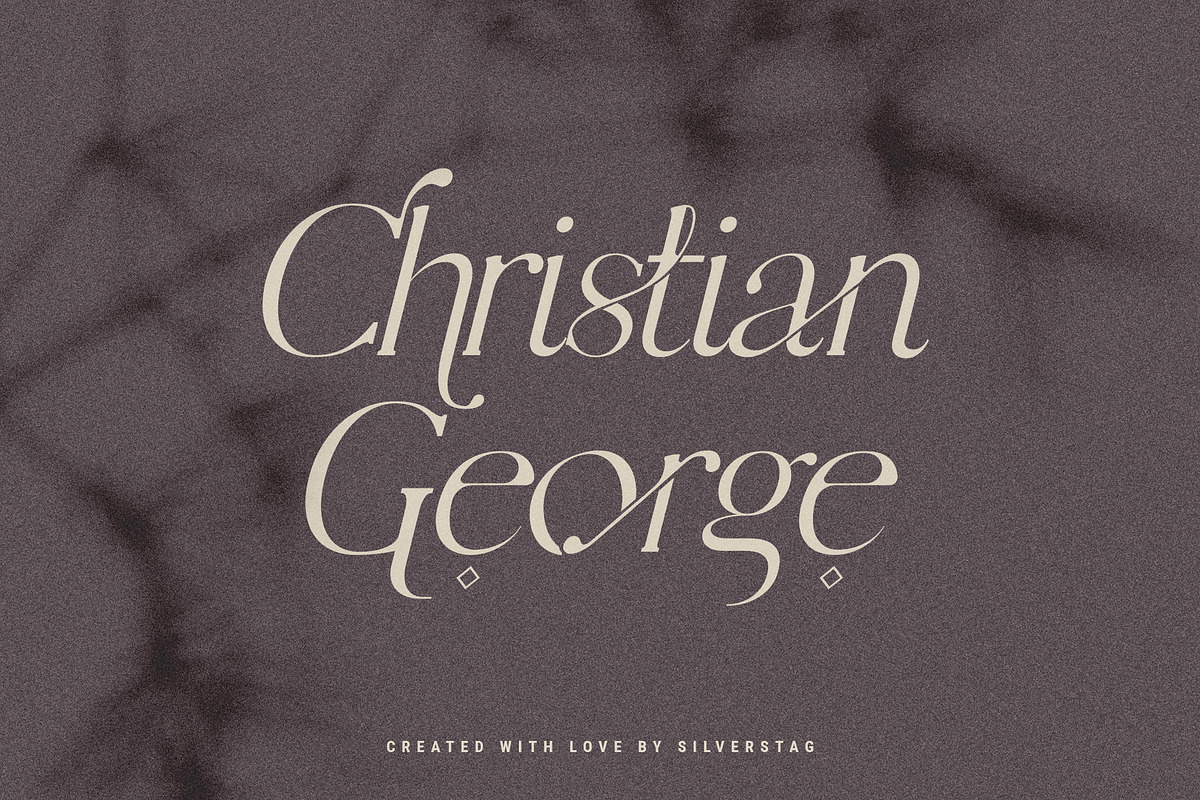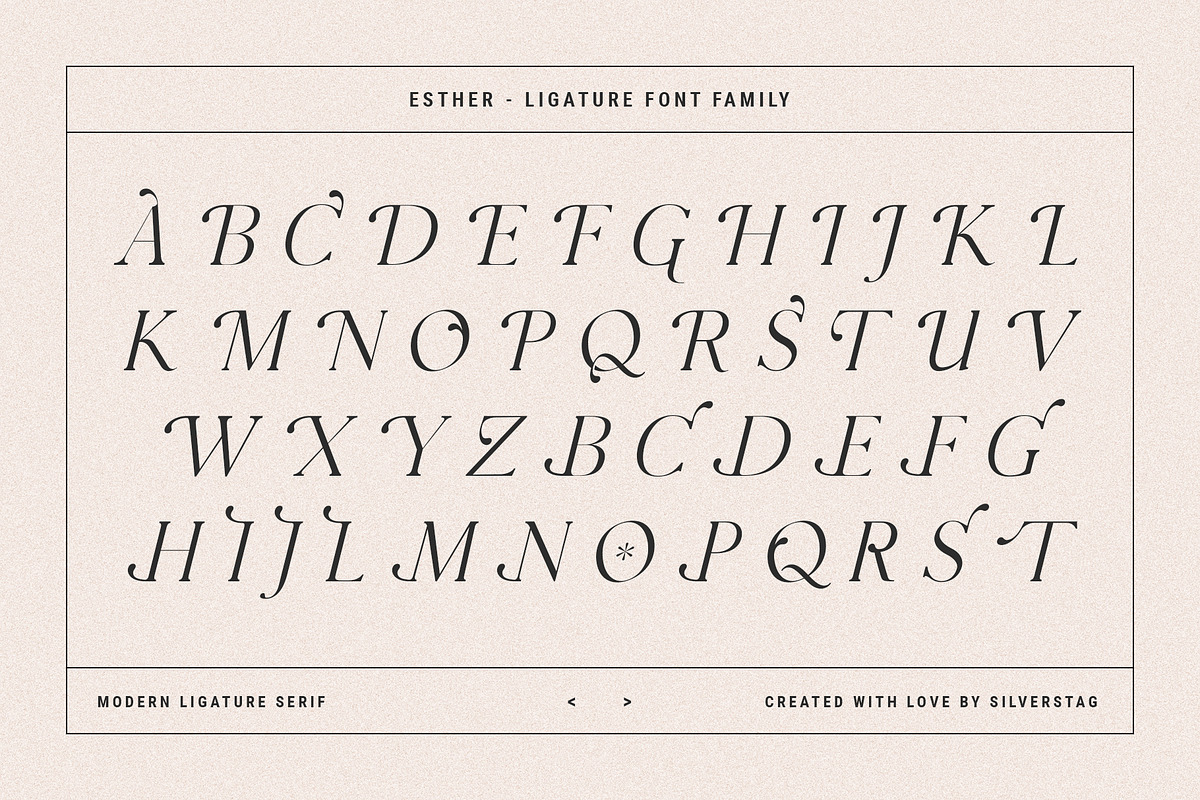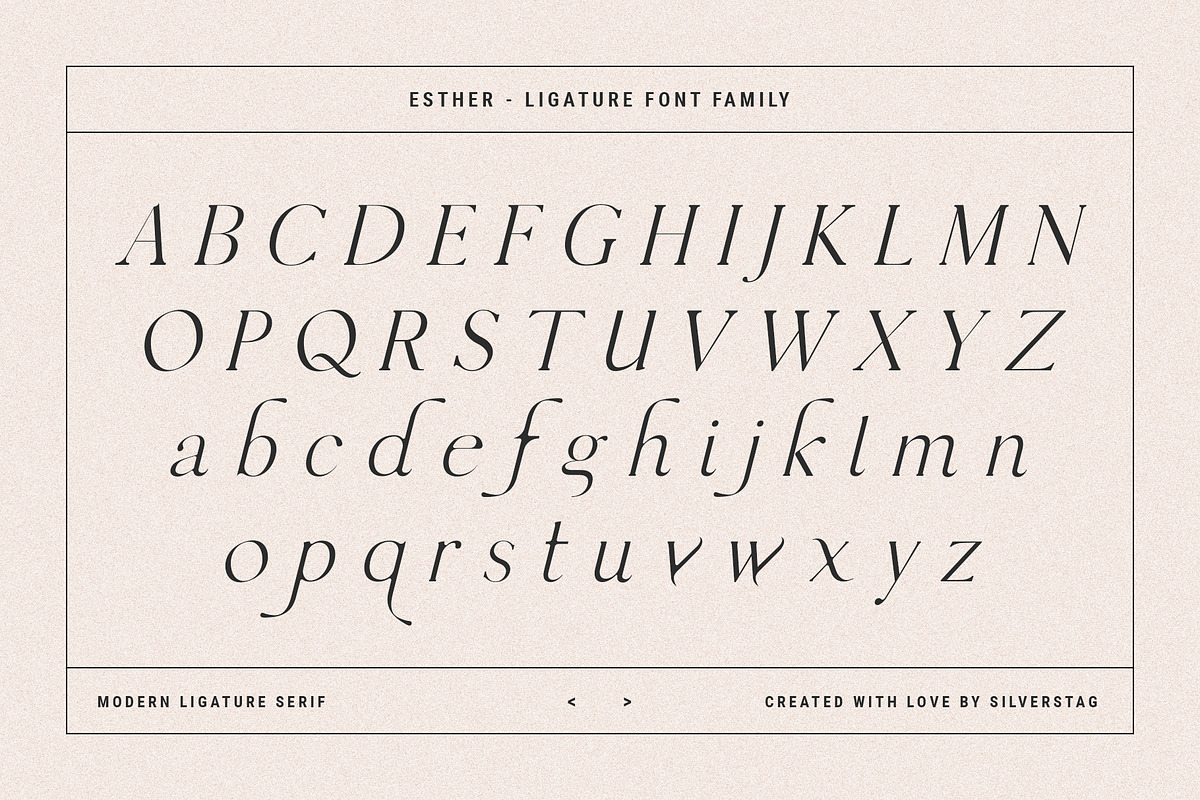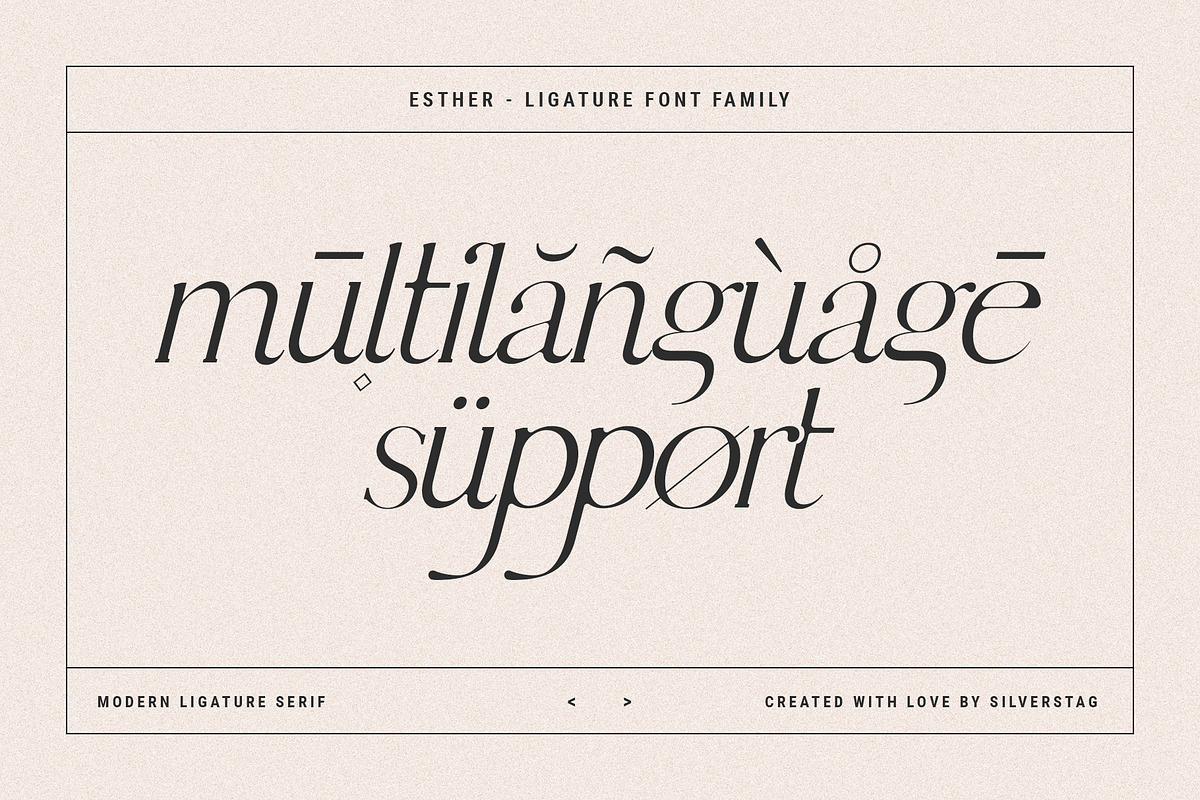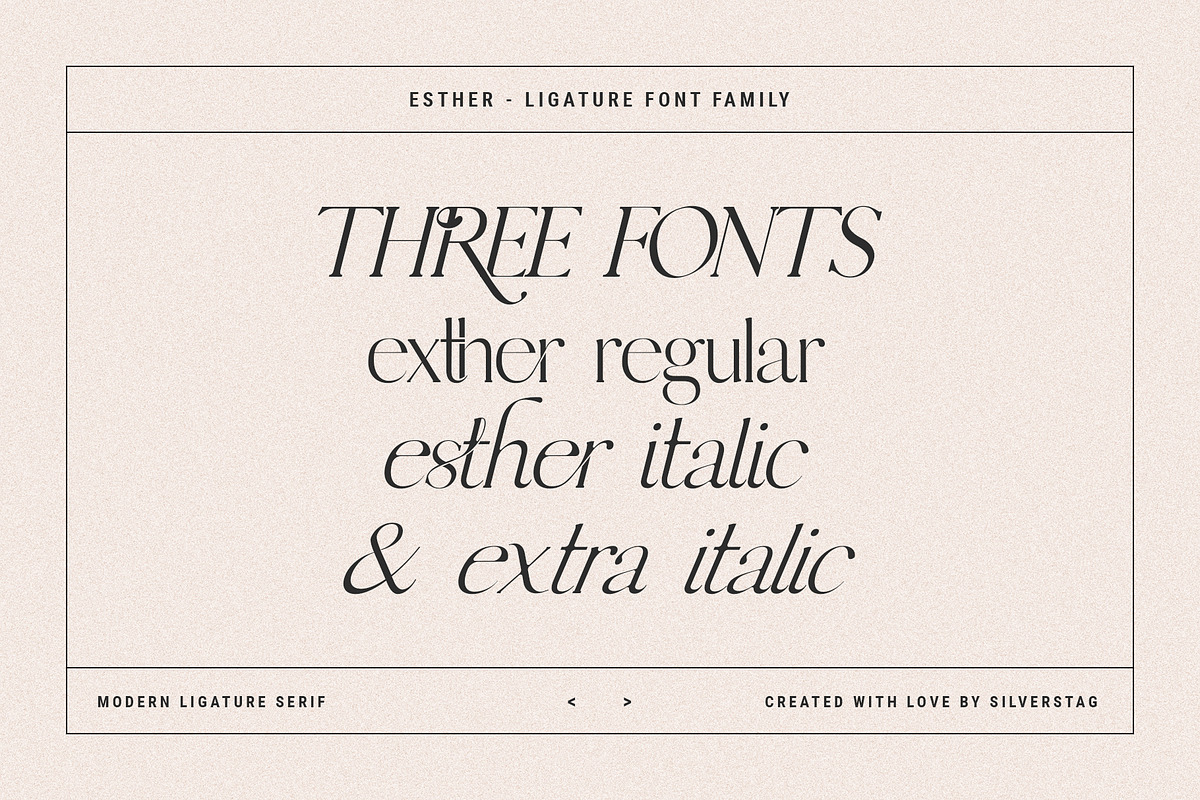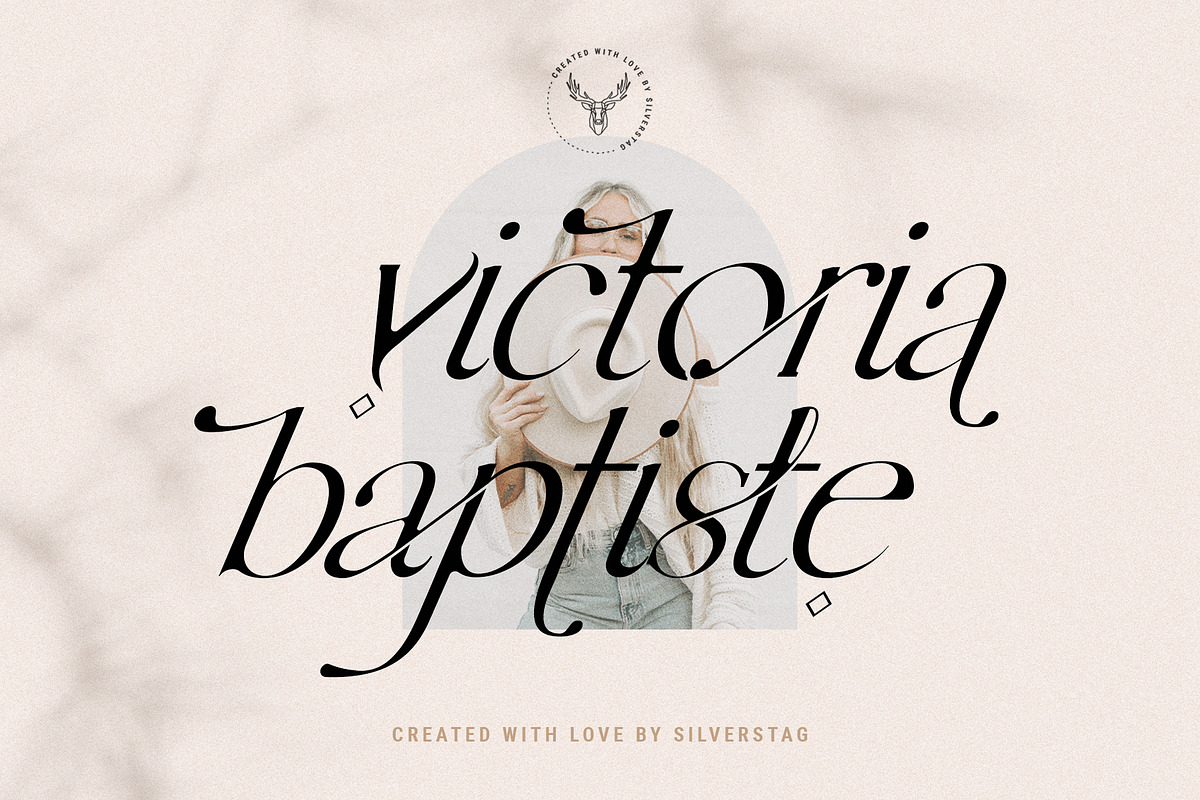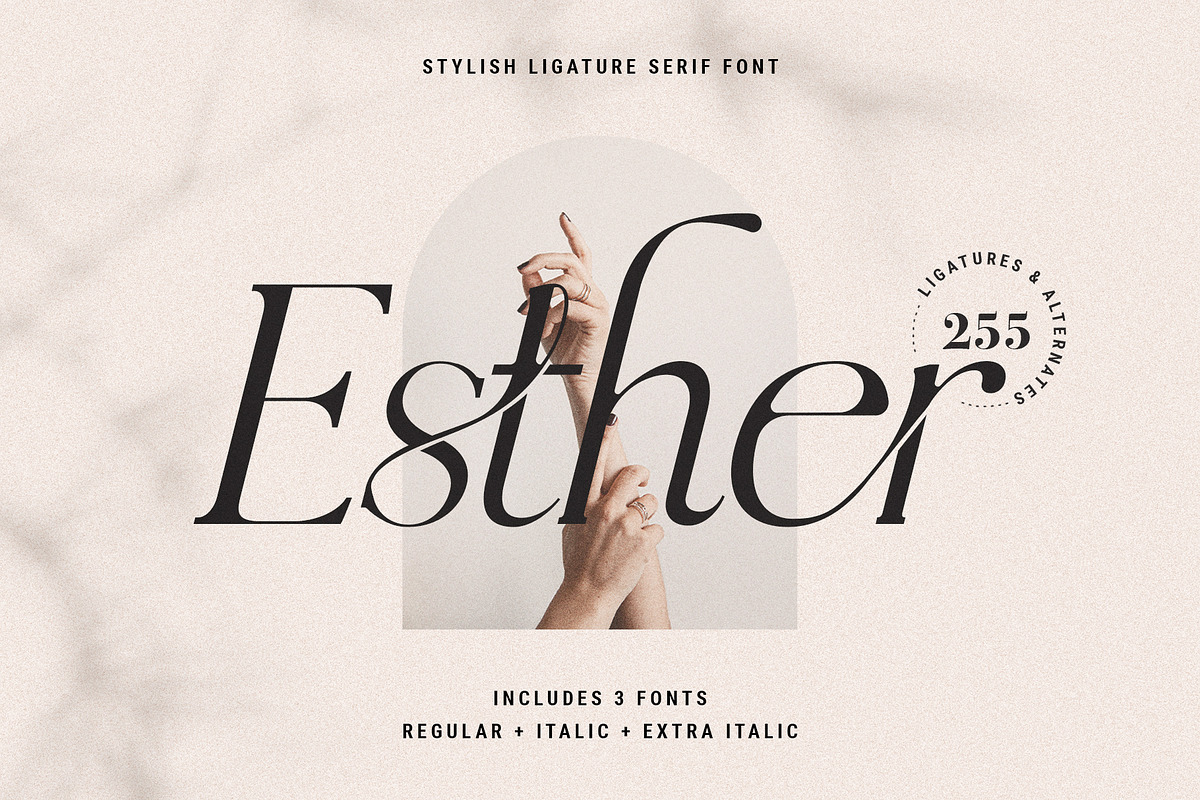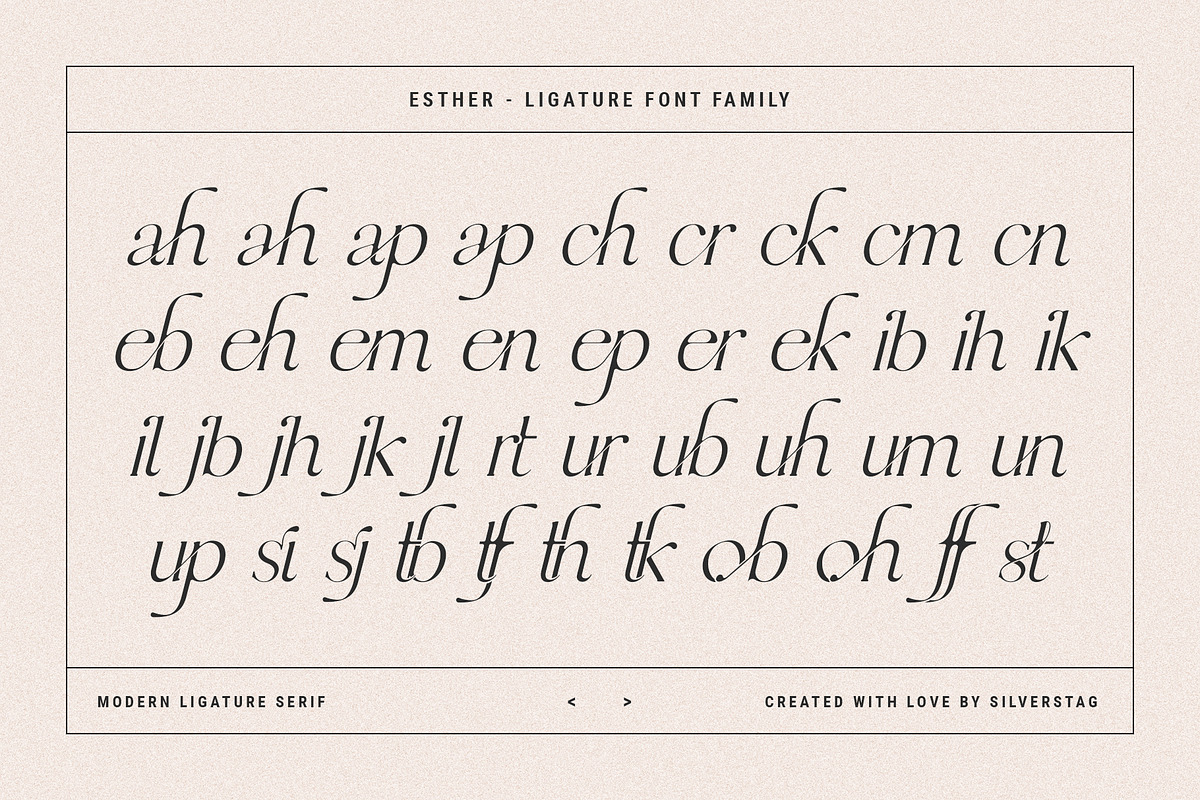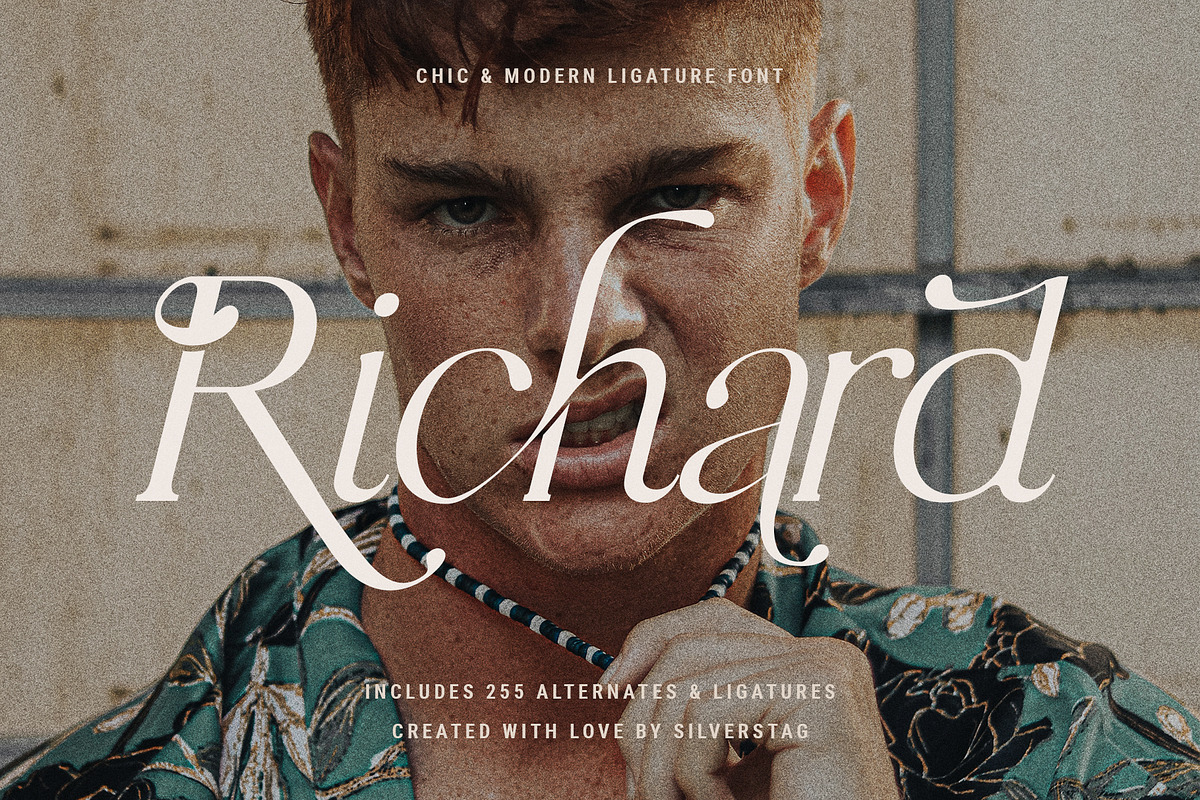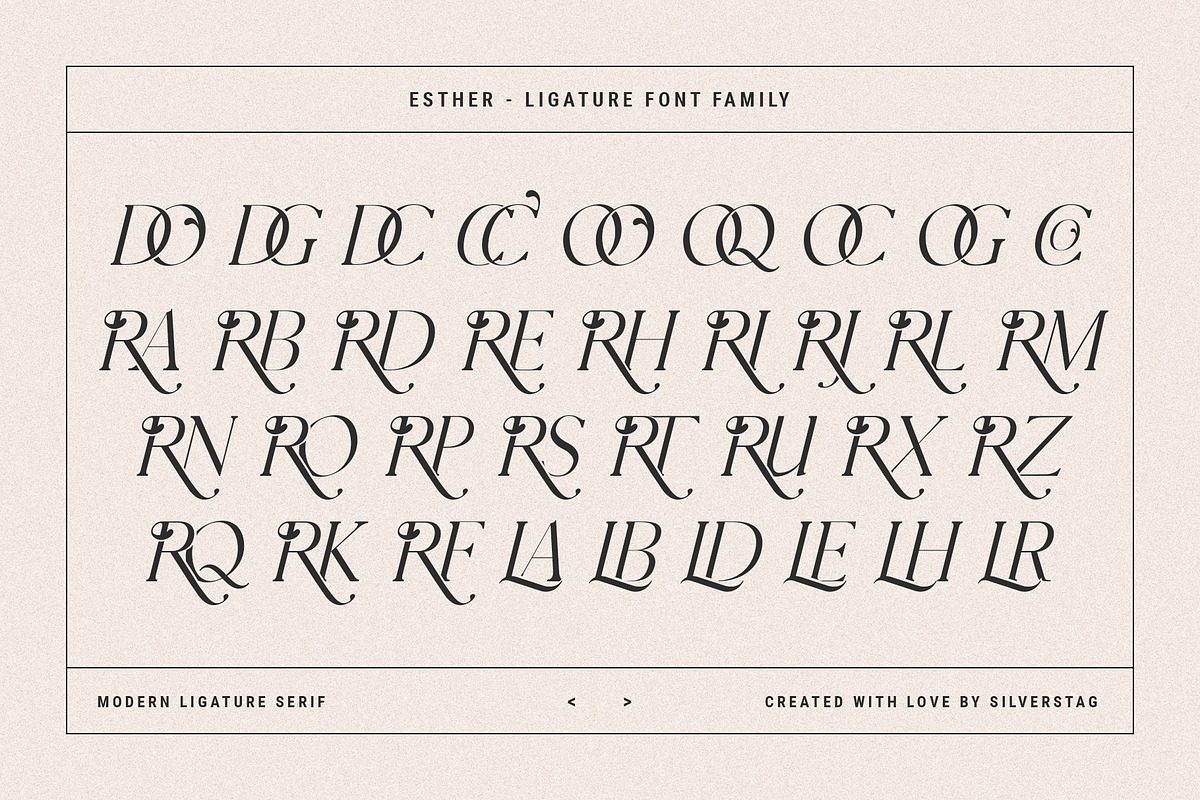
Esther - Ligature Serif Font Family
I published Esther Regular - Ligature Serif Font almost a year ago and I know you loved it. That's why I wanted to offer you an upgraded package with two additional italic & elegant options - Esther Italic & Esther Extra Italic. These three fonts come with more ligatures, more alternate letters, new combinations, new swirls with some that even look like a script font ligatures - just check out the "st" ligature in the name of the font. In total you will have over 250 alternates and ligatures in one serif font!
So, whether you have a client that needs a new chic logo, or you're designing your social media posts. Maybe you're preparing your wedding mood board, stationery, invitations, Esther Ligature font is just perfect for all of that and more. Check out the photos I have prepared for you to see what you can do with it and happy creating!
- 255 Ligatures & Alternate letters
- Lowercase and Uppercase letters
The following letters are included: A À Á Â Ã Ä Å C Ç D Ð E È É Ê Ë I Ì Í Î Ï N Ñ O Ø Ò Ó Ô Õ Ö U Ù Ü Ú Û W Ẃ Ŵ ẄẀ Y Ý Ÿ Ỳ Ÿ Æ Œ ß Þ þ in uppercase and lowercase so Esther supports a huge number of languages.